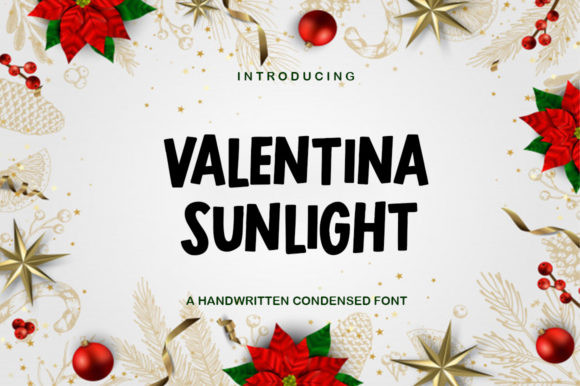
Valentina Sunlight Font
Valentina Sunlight is a bold and simple sans serif font. This font is the ideal font for adding an adventurous and authentic feel to your next design idea!